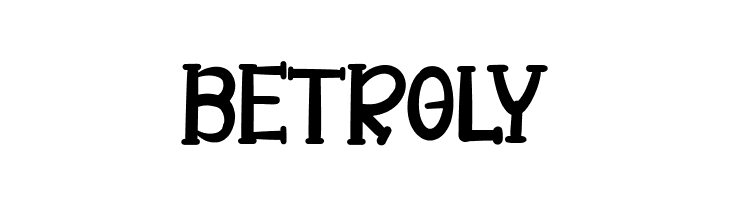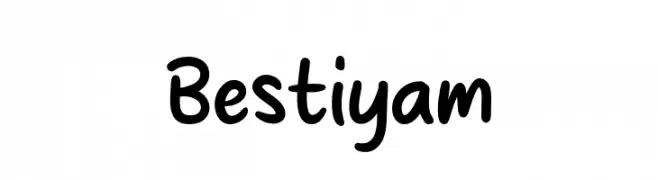
A bold, playful handwritten font with thick, rounded strokes.
( Annie Cresta )
A playful, hand-drawn font with an energetic and whimsical style.
( Fonts by Des Gomez )
A playful, handwritten font with a casual and friendly style.
( Zachary Lucier )
A bold, handwritten font with a playful and informal style.
( Fonts by Letterative Studio )
A playful, handwritten font with smooth curves and a casual style.
( Fonts by Letterena Studios )
An elegant and flowing script font with artistic loops and swirls.
A lively and expressive handwritten font with fluid, connected letterforms.
( Fonts by plafont store )
A lively and expressive handwritten font with fluid, dynamic letterforms.
( Ferdiansyah - creativemarket.com/ijemrockart )
An elegant script font with flowing, interconnected letters and delicate flourishes.